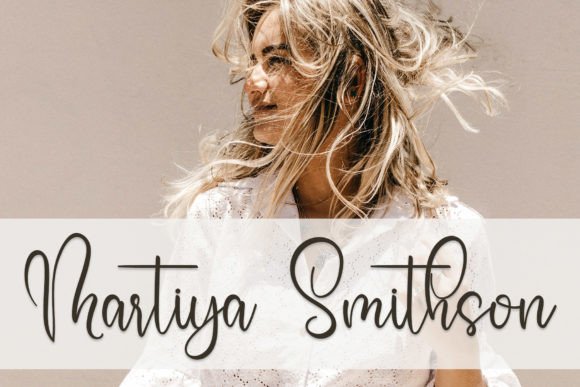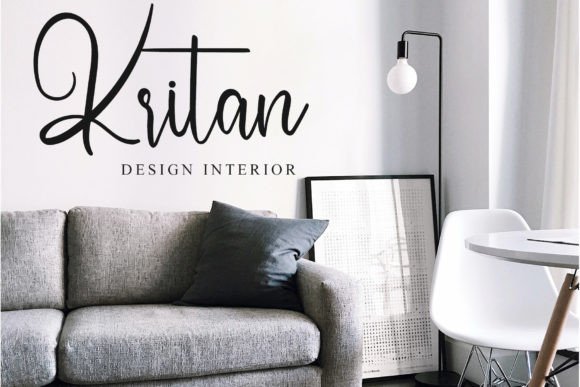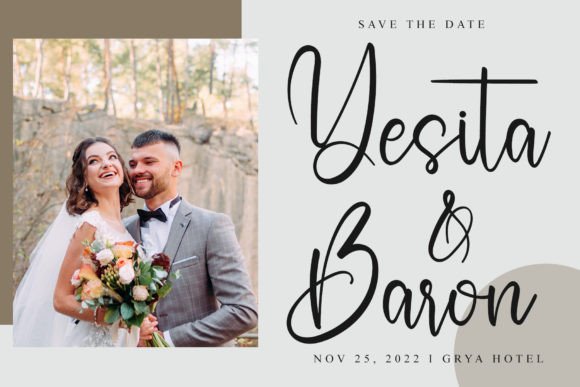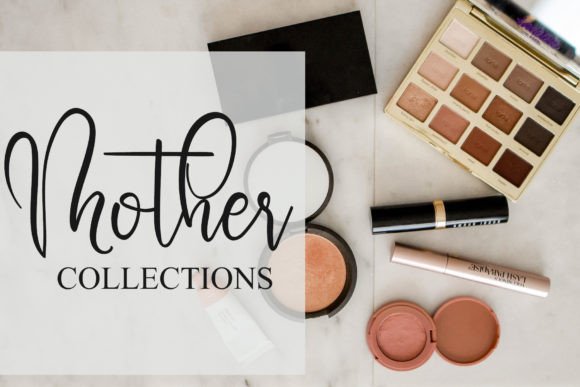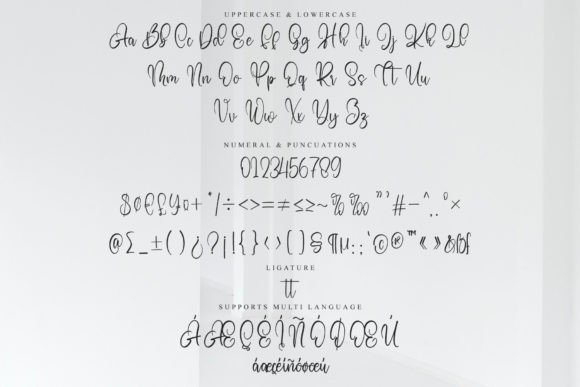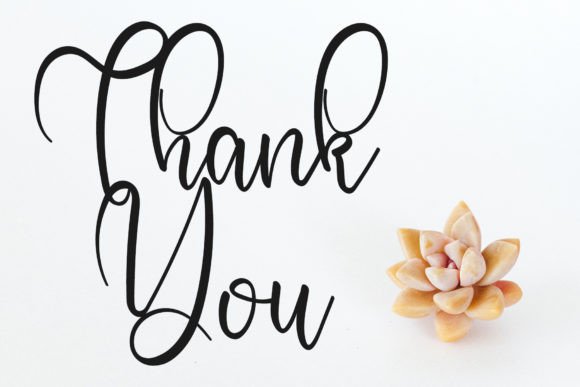
Baby Billy Font: Elevate Your Designs with a Stylish and Dainty Script Font
Are you a designer or crafter looking for a beautiful handwritten font to add a touch of elegance to your projects? Look no further than Baby Billy Font! This stylish and dainty script font is perfect for a variety of design applications, from logos and branding to labels, watermarks, and more.
What is Baby Billy Font?
Baby Billy Font is a masterfully designed script font that exudes a sense of sophistication and charm. Its delicate lines and curves make it an ideal choice for designers who want to add a touch of whimsy and personality to their work. Whether you’re creating a logo, branding materials, or social media graphics, Baby Billy Font is sure to impress.
Key Features of Baby Billy Font
- Stylish and dainty design: Baby Billy Font features a beautiful, handwritten design that’s perfect for adding a touch of elegance to your projects.
- Versatile: This font is suitable for a wide range of design applications, from logos and branding to labels, watermarks, and more.
- Easy to read: Despite its delicate design, Baby Billy Font is easy to read, making it perfect for body text and headlines.
- High-quality: This font is designed to produce high-quality results, even at small sizes.
Why Choose Baby Billy Font?
So why choose Baby Billy Font for your design projects? Here are just a few reasons:
- Add a personal touch: Baby Billy Font adds a personal, handwritten touch to your designs, making them stand out from the crowd.
- Enhance your brand: This font is perfect for creating a unique and memorable brand identity that will leave a lasting impression on your customers.
- Unique and creative: This font is sure to inspire your creativity and help you produce unique and eye-catching designs.
Design Applications for Baby Billy Font
Baby Billy Font is a versatile font that can be used in a variety of design applications, including:
- Logos and branding: Create a unique and memorable logo that reflects your brand’s personality and values.
- Labels and packaging: Add a touch of elegance to your labels and packaging with this beautiful script font.
- Social media graphics: Use Baby Billy Font to create eye-catching social media graphics that will help you stand out from the crowd.
- Watermarks: Add a professional touch to your photos and designs with this elegant script font.
Tips for Using Baby Billy Font
Here are a few tips for getting the most out of Baby Billy Font:
- Experiment with different sizes: Baby Billy Font looks great at a variety of sizes, so don’t be afraid to experiment and find the perfect size for your design.
- Pair with other fonts: Try pairing Baby Billy Font with other fonts to create a unique and eye-catching design.
- Use it sparingly: Because Baby Billy Font is so elegant, it’s best to use it sparingly to avoid overwhelming your design.